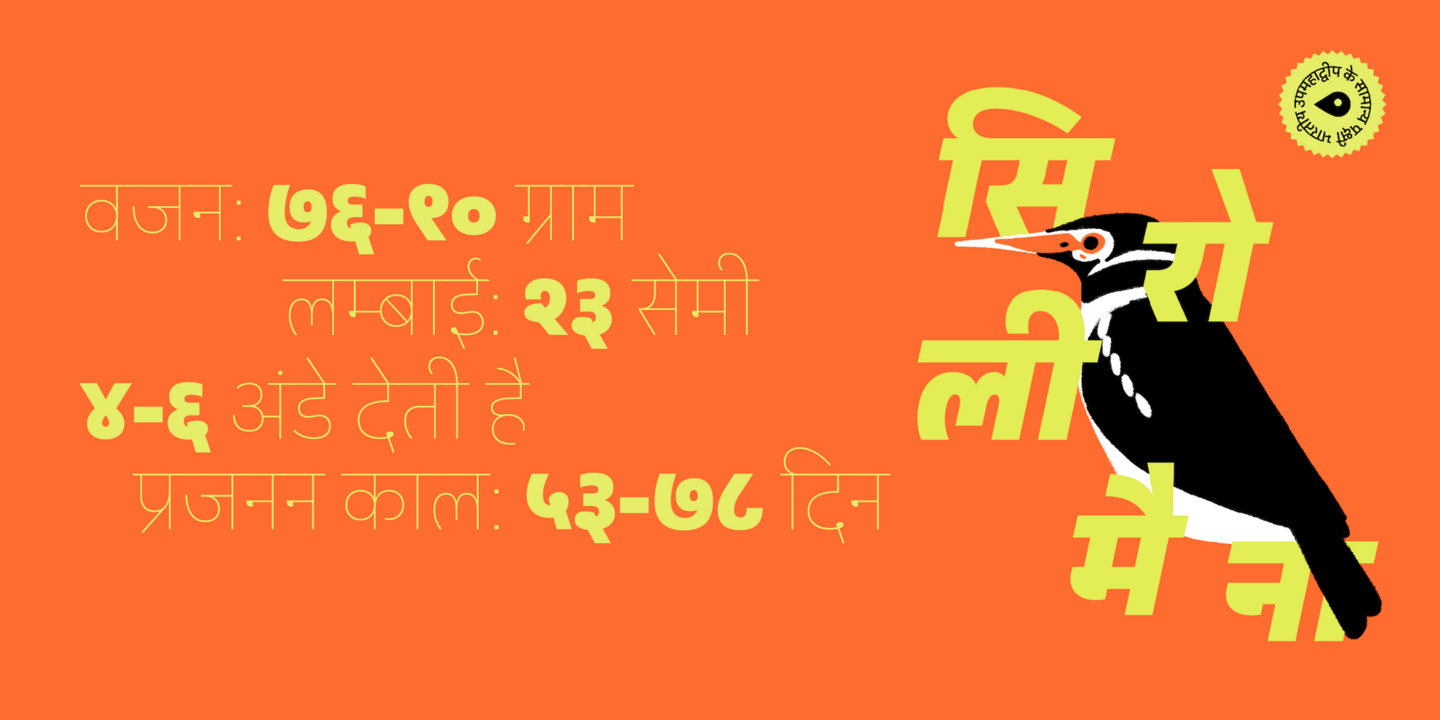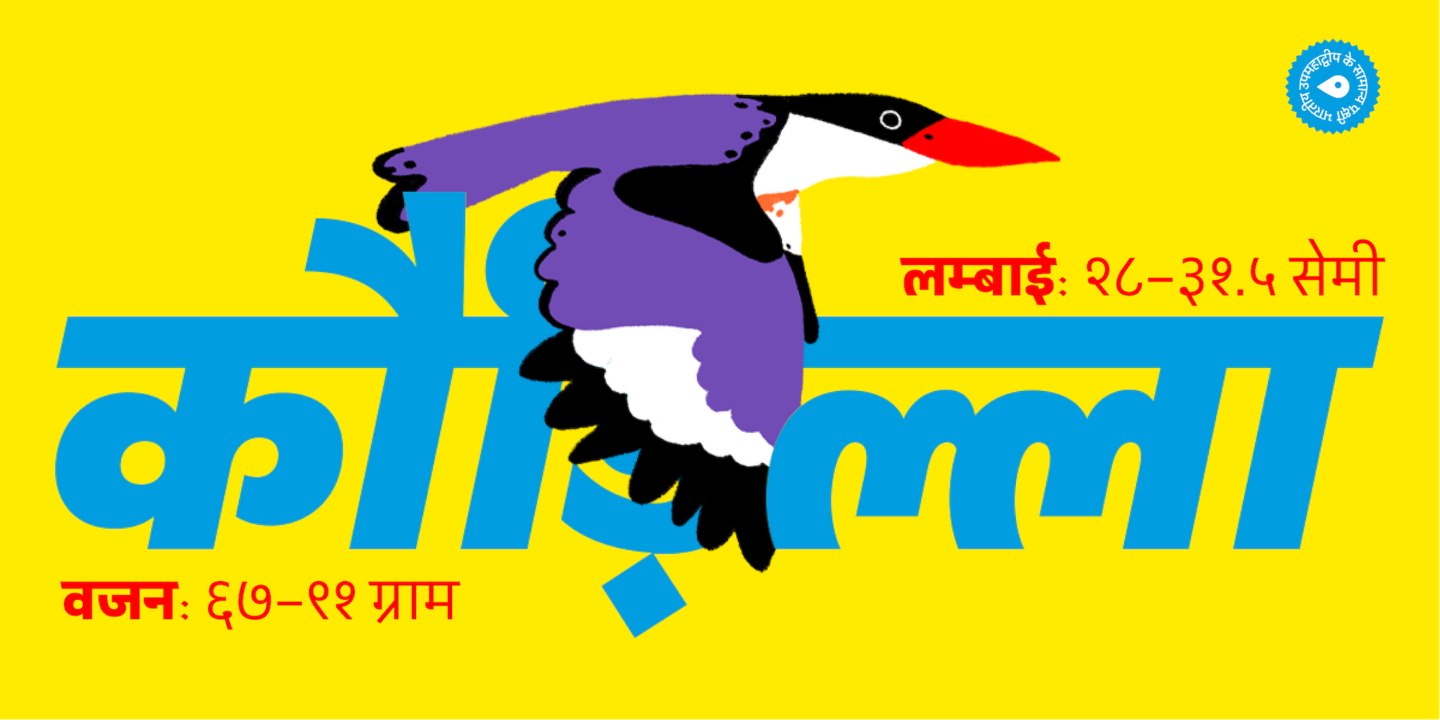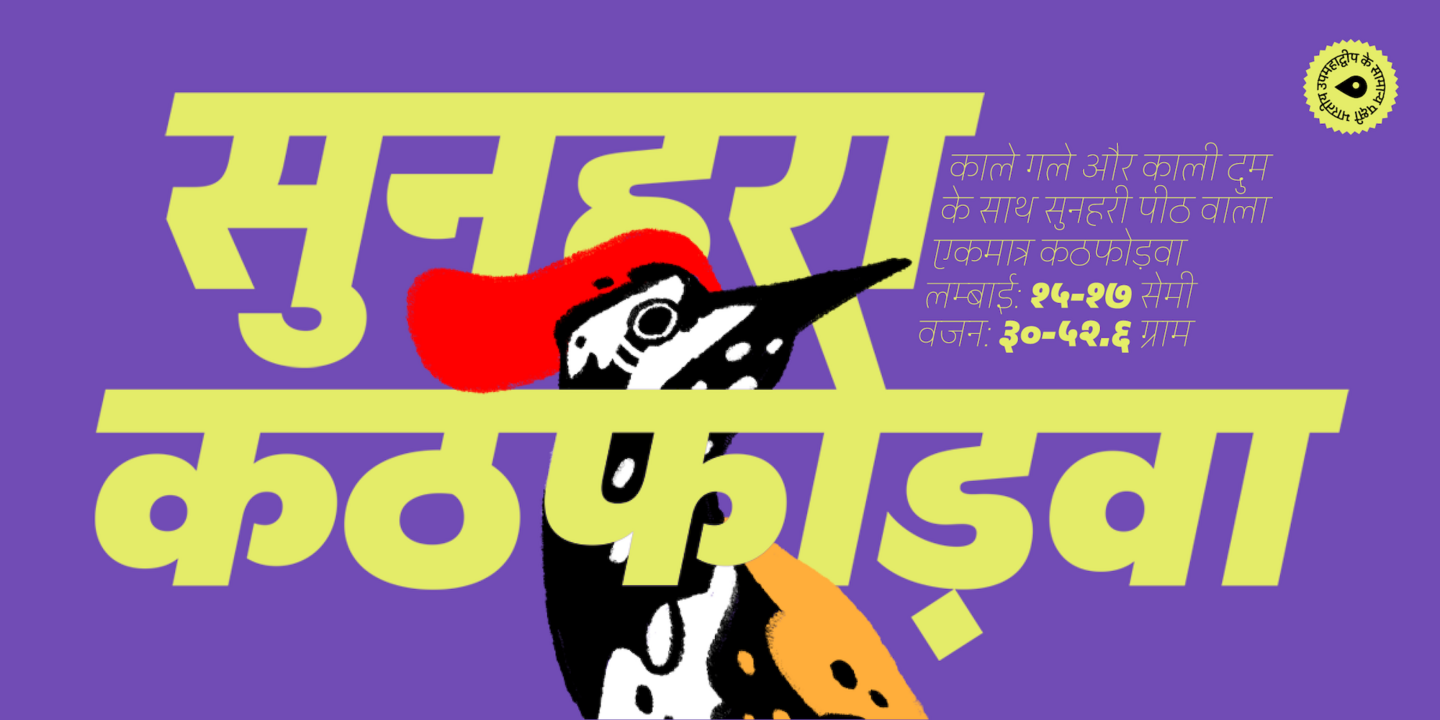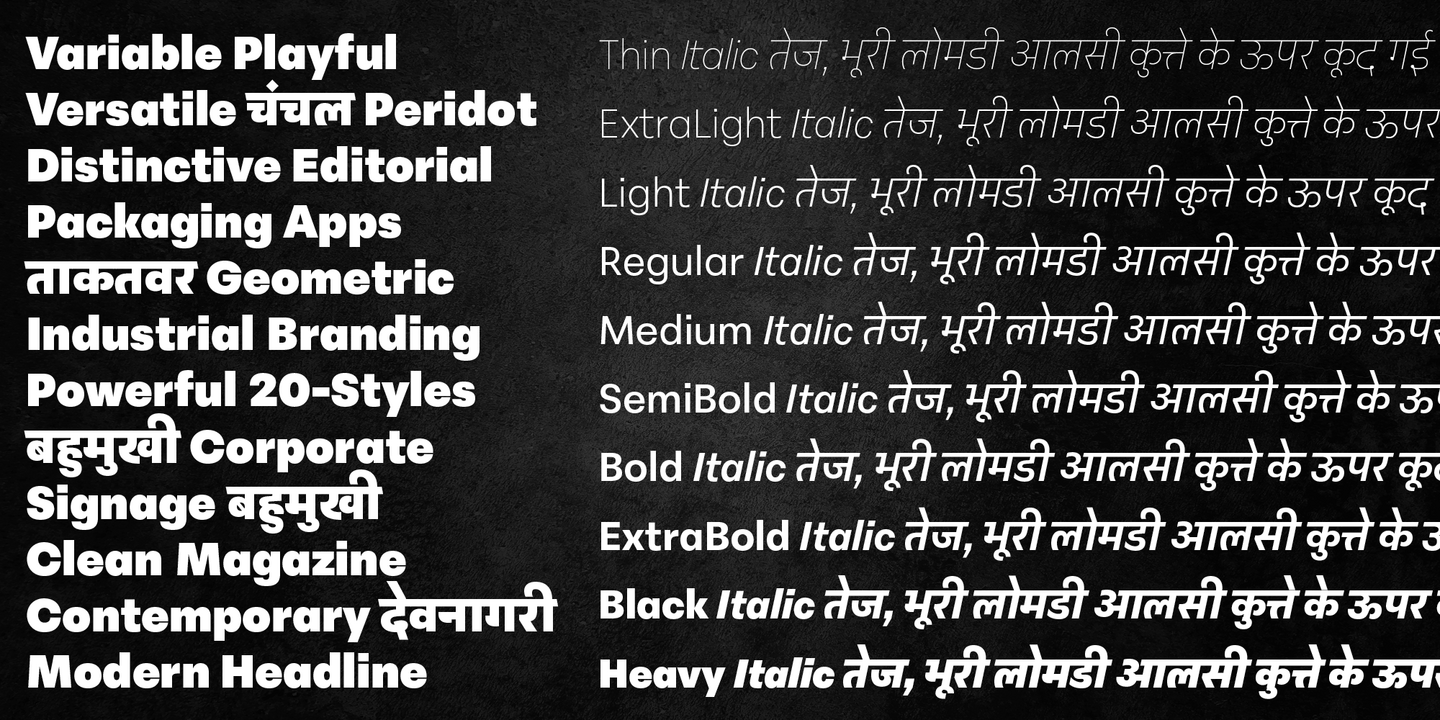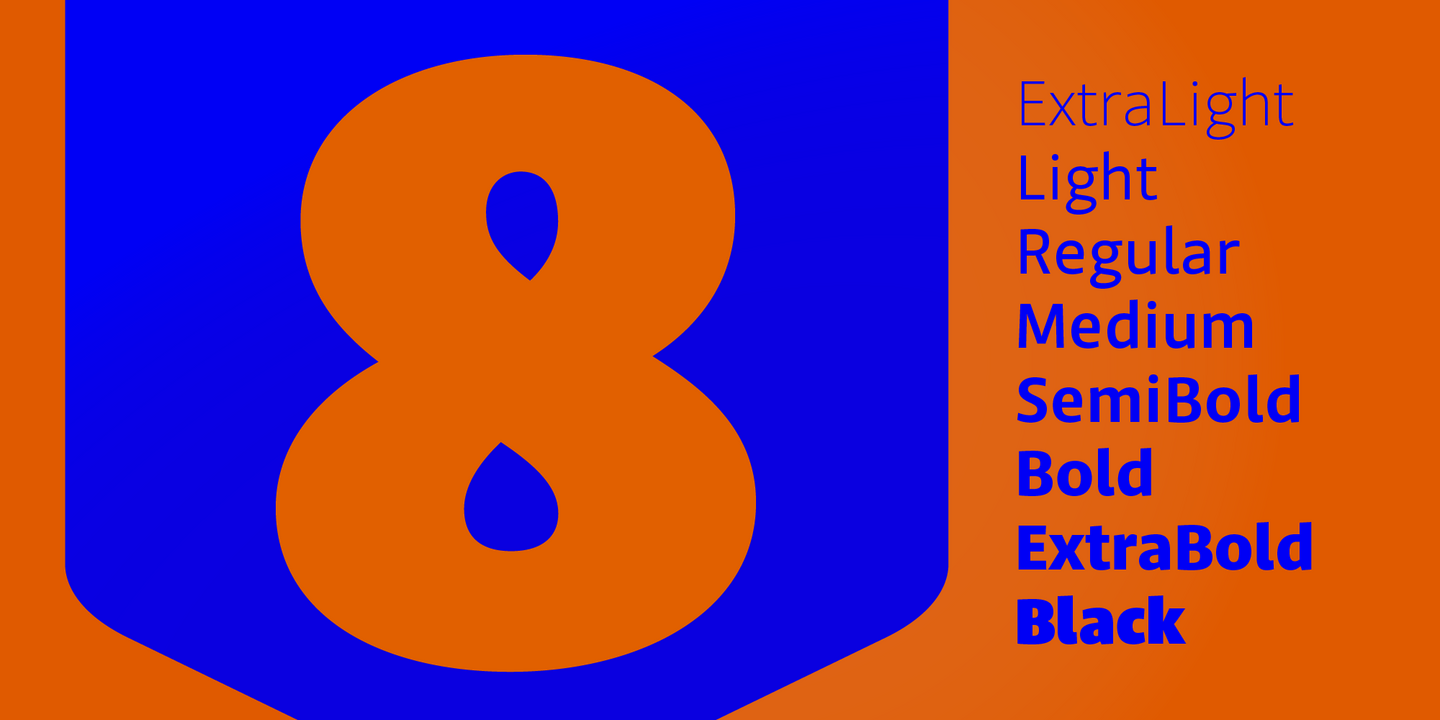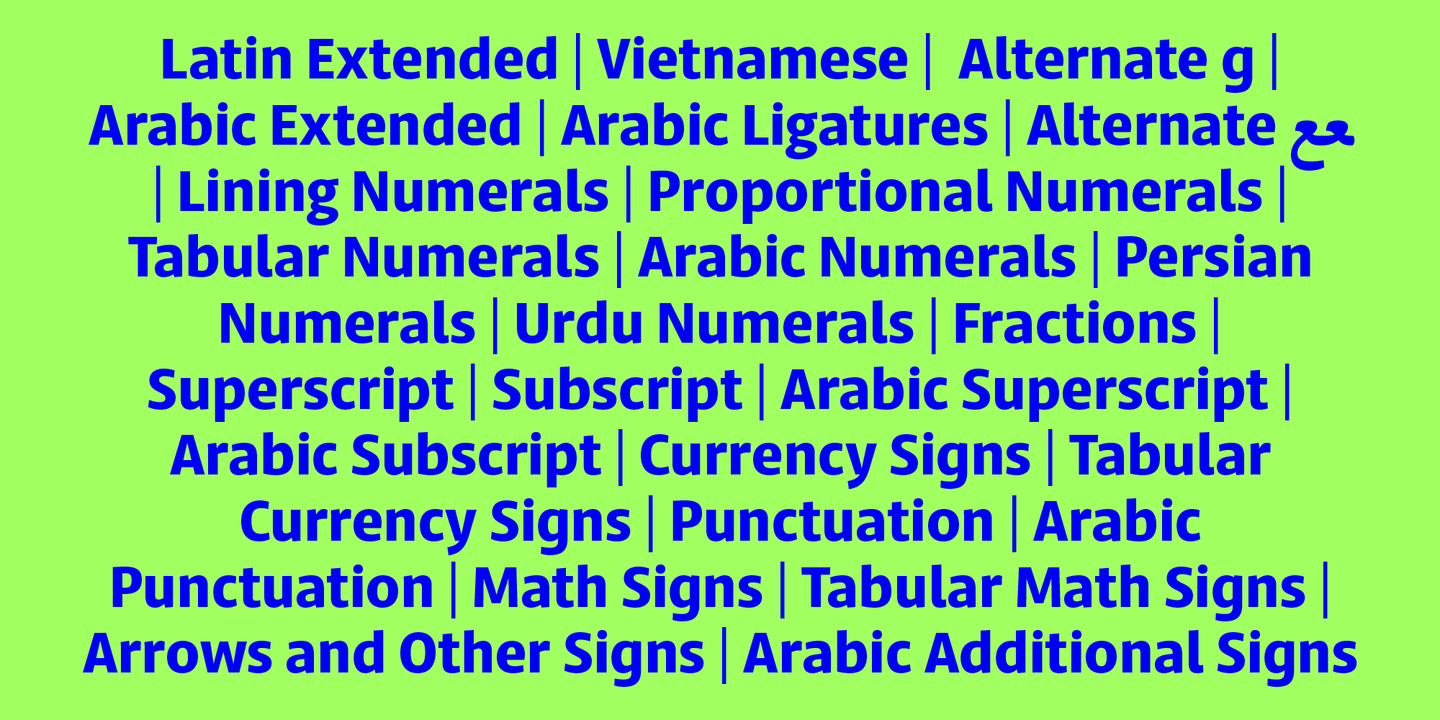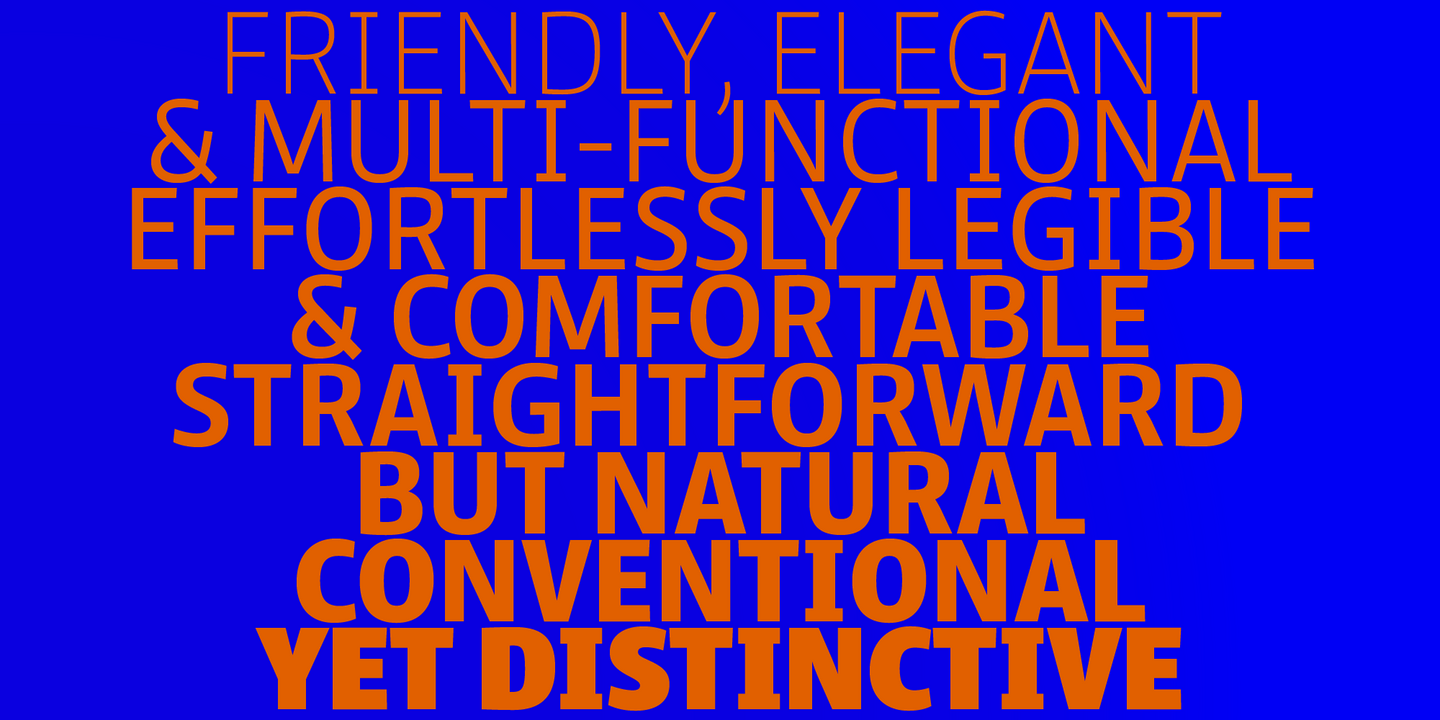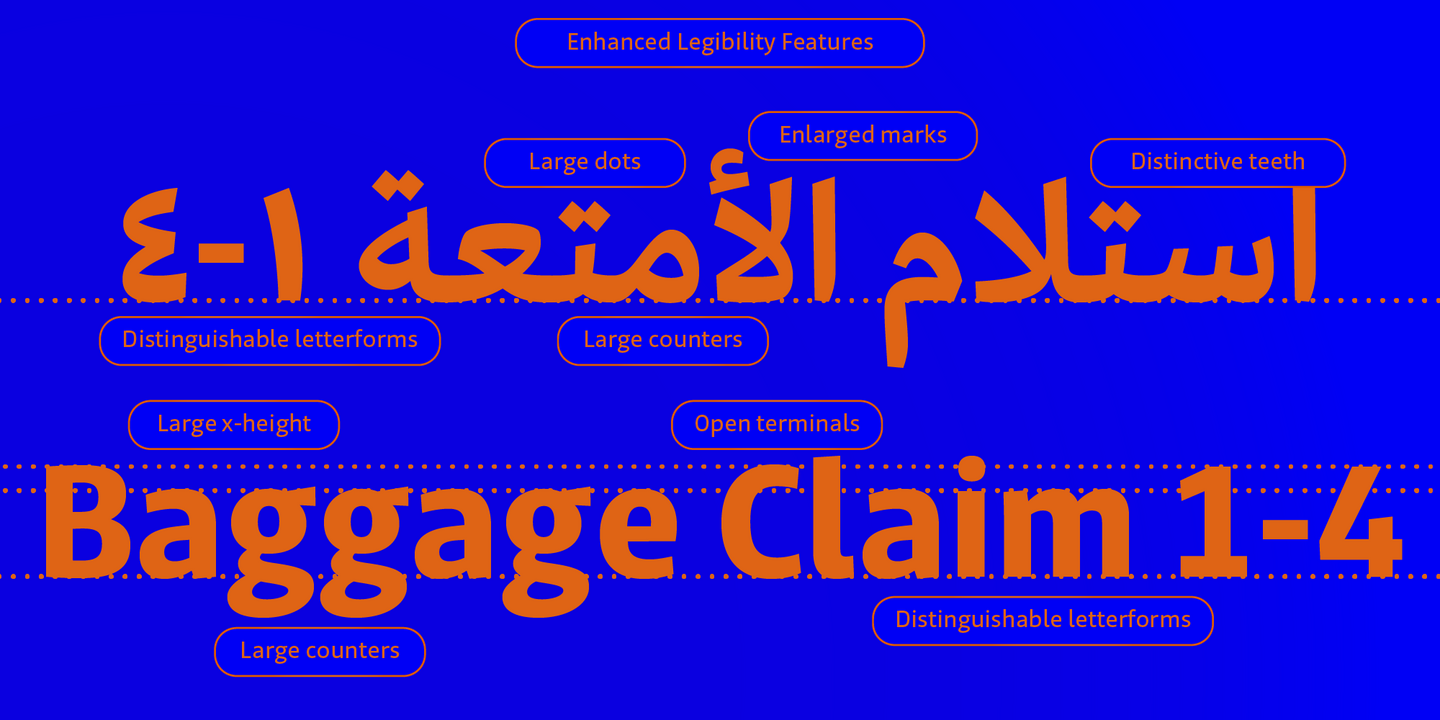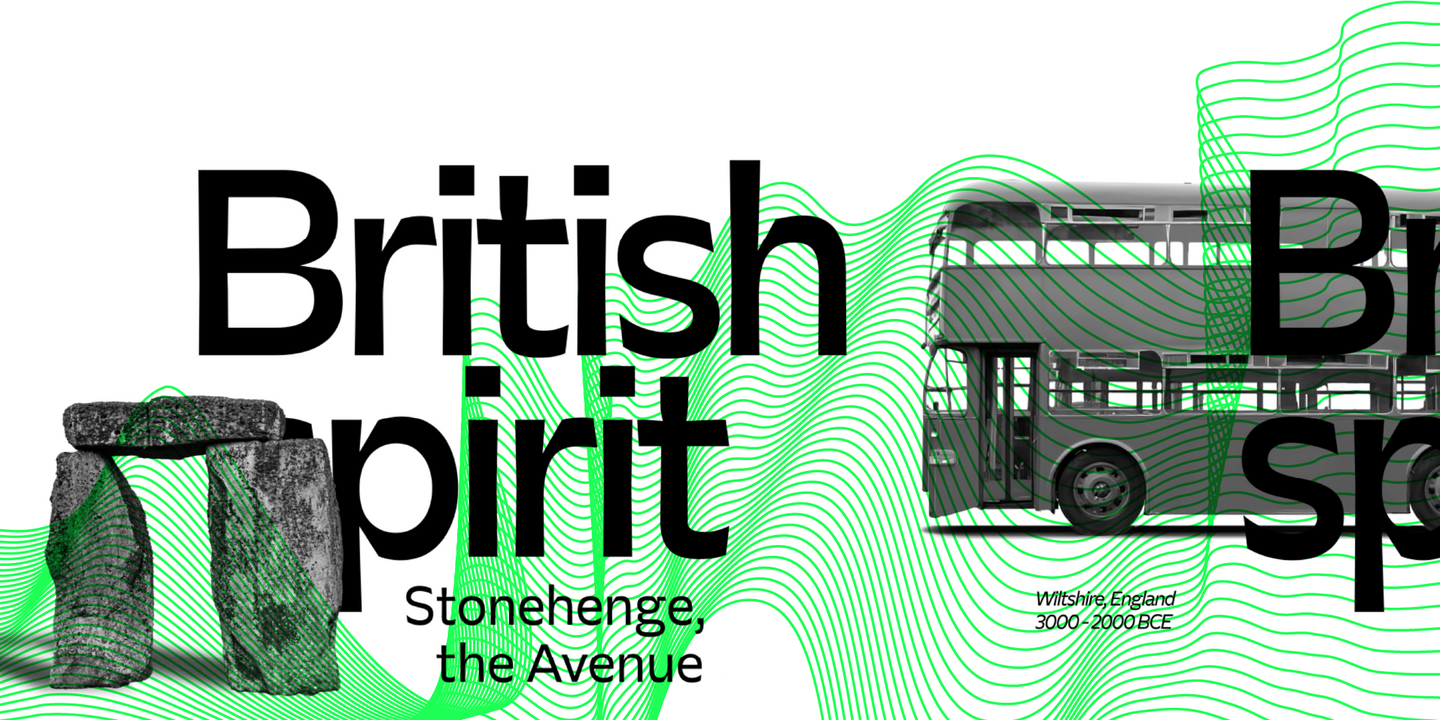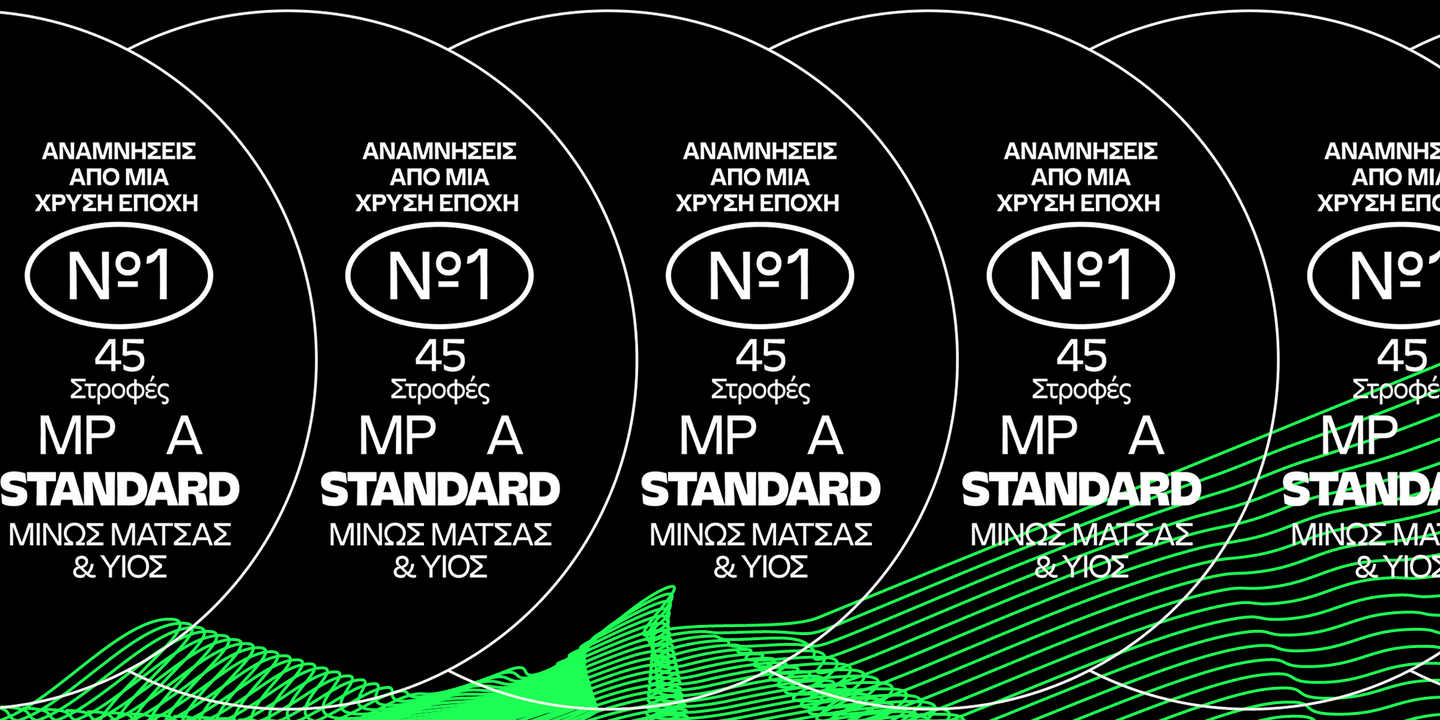
Foundry5 is an independent type foundry dedicated to creating bold, innovative typefaces for global scripts. Our diverse team designs unique, culturally aware typefaces that elevate communication in a world where effective graphic and linguistic expression is crucial.
Just like a well-curated playlist, Peridot brings together diverse influences into a cohesive sans serif type system. Blending soft curves with striking angles, it offers a fresh yet familiar aesthetic. With 10 weights and matching italics in 6 widths, Peridot excels in body text and headlines. Supporting Cyrillic, Greek, Latin, and Devanagari scripts, along with upcoming Arabic and Tamil support, it is the essential typeface for every creative endeavor. Peridot has also received prestigious awards, including the Evge and Communication Awards.
Jali is a humanist sans serif typeface expertly crafted for wayfinding applications, embodying its design philosophy with a name that means “clear” in Arabic. Featuring low-contrast strokes and generous counters, Jali prioritizes readability and delivers an efficient reading experience. It supports Arabic, Greek, and Latin scripts, adapting seamlessly to various environments. Recognized for its excellence, Jali has garnered prestigious awards, including the TDC Certificate in Typographic Excellence and Granshan’s 1st Prize in the Arabic & Latin Category in 2019.
Evert is a typeface that breaks the mold while honoring classic roots, inviting exploration into a vibrant world of expressive typography. Inspired by Miller and Richard’s Grotesque No.1 and Roger Excoffon’s Antique Olive, it blends subtle rigidity with humanistic elegance. Supporting both Latin and Greek scripts, Evert offers localized forms, old-style numerals, and discretionary ligatures. With 48 styles and 3 optical sizes, Evert is your trusted companion for any creative endeavor and has received accolades, including the Evge and Communication Awards.
In today’s interconnected landscape, clear communication across various languages is essential for multinational organizations. Unfortunately, fonts for many scripts have been neglected, often designed without the necessary expertise and categorized in ways that reinforce their marginalization. Foundry5 is here to change that with our premium library of high-quality fonts. Each script we offer is significant and thoughtfully crafted! Our dedicated team has developed visually striking and technically robust global type families, ready to enhance your brand across all platforms. With F5, you can trust our exceptional typefaces to make a lasting impact in every language and culture!
Type designer & Director
Dr. Mohamad Dakak
After studying visual communication at Damascus University, Mo’s passion for type design led him to pursue an MA in Typeface Design from the University of Reading, followed by a PhD focused on “Towards Understanding Diversity in Arabic Type Styles: Its Origins, Current Usage, and Its Impact on Arab Readership.” Now a dedicated type designer and researcher, Mo brings a wealth of knowledge and creativity to the team. Currently based in both Cambridge and Cairo, he leverages his experience as a graphic designer to create innovative, functional typefaces that remain true to the Arabic script and resonate with diverse audiences.
Type designer & Director
Dr. Pria Ravichandran
Pria is a graduate of the University of Reading, where she earned both her Master’s degree and a doctorate focused on “The Development of Typographic Forms for the Kannada and Telugu Scripts.” She believes that design must solve problems and is passionate about exploring how scripts from the Indian subcontinent, which lack the typographic history of Latin scripts, can achieve a similar breadth of design variations. At Foundry5, Pria wears many hats—not only designing but also managing administration and finances—ensuring that everything runs smoothly and efficiently.
Type designer & Director
Kostas Bartsokas
Kostas is a type designer and font engineer with an MA in Typeface Design from the University of Reading. He is the creator of Averta, a typeface celebrated among the top 100 fonts used online. His work has received numerous accolades from prestigious organizations such as TDC, Granshan, Evge, and Communication Design, among others. Additionally, Kostas serves as a judge at both TDC and Granshan, sharing his expertise with the broader design community. With a focus on crafting original typefaces, he enhances script support for Greek and Cyrillic, ensuring that each design adheres to the highest standards of quality.
Commercial Lead & Director
Jason Harcombe
A committed professional, Jason enhances the type experience for brands and creatives. He brings a deep understanding of the commercial aspects of the font industry and develops tailored solutions that empower clients to effectively utilize the fonts they need across various environments. His strategic approach simplifies the process of working with type, making it both accessible and efficient. By allowing clients to concentrate on their core strengths, he plays a key role in helping them craft outstanding designs that make a lasting impact.